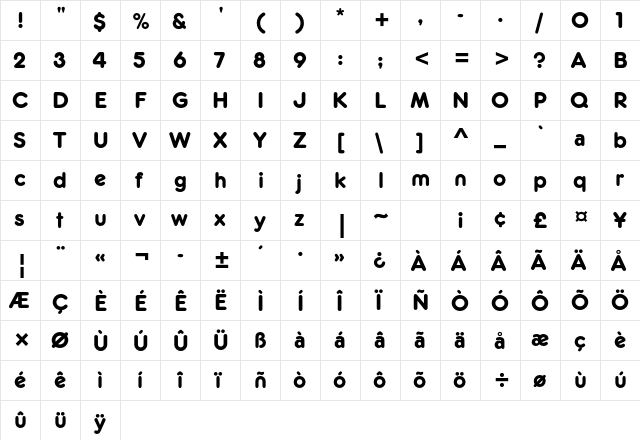
Frankfurter Medium Std Regular
| Designer | Alan Meeks |
Design Context for Frankfurter Medium Std Typeface
Frankfurter Medium Std takes a measured approach to typography — its balanced proportions and neutral character make it a reliable workhorse for both digital and print work.